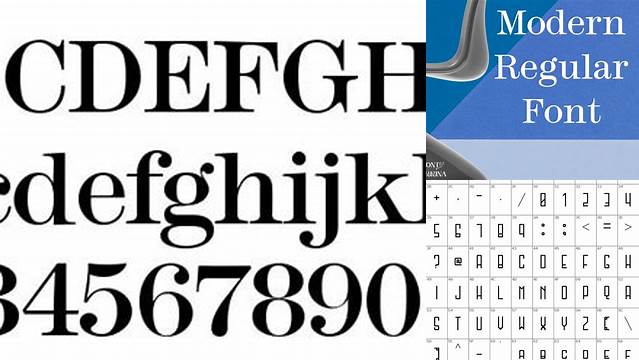
Modern Regular Fonts: Free Downloads For Your Projects
Introduction: Diving into the World of Modern Regular Fonts
Hey guys! Ever wondered what makes a font truly modern and regular? Well, let's dive in! Modern regular fonts are the unsung heroes of design, offering a clean, contemporary look that works wonders across various platforms. Think websites, posters, logos – you name it! Finding the perfect modern regular font that’s also available for free download can feel like searching for a needle in a haystack. But don't worry; we’re here to guide you through the process. We'll explore what defines these fonts, where to find them, and how to use them effectively. Getting the right font can elevate your project from meh to marvelous, and we're here to make that happen. Whether you’re a seasoned designer or just starting out, understanding the nuances of modern regular fonts is essential. So, let's get started and unlock the potential of these fantastic typefaces!
What Defines a Modern Regular Font?
So, what exactly makes a modern regular font tick? It's all about clean lines, geometric shapes, and a balanced appearance. Modern fonts often feature high contrast between thick and thin strokes, giving them a sophisticated, almost elegant feel. Regular refers to the font's weight – it's not bold, not light, but just right. This makes it incredibly versatile for body text, headlines, and everything in between. Imagine a font that's easy on the eyes, readable at any size, and adds a touch of class to your project. That's the essence of a modern regular font. These fonts steer clear of overly decorative elements, focusing instead on simplicity and clarity. This minimalist approach ensures that your message gets across without any distractions. They are often characterized by their vertical stress and sharp serifs (if they have any). This gives them a very distinct and polished appearance. For example, think of fonts like Helvetica or Futura – they embody these qualities perfectly. Embracing a modern regular font means embracing a timeless aesthetic that never goes out of style. It’s about creating designs that are both contemporary and enduring.
How to Choose the Right Modern Regular Font
Choosing the right modern regular font can feel like a daunting task, but don't sweat it! First, think about the purpose of your project. Is it for a website, a poster, or a logo? Each medium has its own requirements. For websites, readability is key, so opt for fonts that are easy on the eyes at smaller sizes. For posters and logos, you can afford to be a bit more adventurous, but make sure the font still reflects your brand's personality. Consider the overall tone you're trying to convey. Do you want something elegant and sophisticated, or something more playful and approachable? The font should align with your message. Also, pay attention to the font's legibility and readability. Legibility refers to how easy it is to distinguish individual letters, while readability refers to how easy it is to read words and sentences. Always test the font in different sizes and contexts to ensure it looks good. And don't be afraid to experiment! Try out different combinations of fonts to see what works best. Ultimately, the right modern regular font is one that enhances your design and helps you communicate your message effectively.
Modern Regular Fonts for Web Design
When it comes to web design, modern regular fonts are your best friends. They provide the clean, readable text that users need to navigate your site easily. A good modern regular font ensures that visitors can focus on the content, rather than struggling to decipher fancy or overly stylized typography. For body text, opt for fonts like Open Sans, Roboto, or Lato – these are widely used and known for their excellent readability on screens. For headings, you can be a bit more creative, but still prioritize clarity. Fonts like Montserrat or Raleway can add a touch of personality without sacrificing legibility. Remember to consider the overall aesthetic of your website when choosing a font. A minimalist website might benefit from a clean, sans-serif font, while a more traditional website could use a serif font with a modern twist. Also, pay attention to the font's weight and size. Too light or too small, and it will be difficult to read; too heavy or too large, and it will overwhelm the design. Aim for a balanced approach that complements your website's content and enhances the user experience. Ultimately, the goal is to create a website that's both visually appealing and easy to use, and the right modern regular font can help you achieve that.
Modern Regular Fonts for Print Design
In the world of print design, modern regular fonts offer a timeless elegance and readability that can elevate any project. Whether you're designing brochures, posters, or business cards, choosing the right font is crucial for making a lasting impression. Modern regular fonts provide a clean and professional look, ensuring that your message is conveyed clearly and effectively. For body text in print, consider fonts like Garamond, Times New Roman, or Century Gothic. These fonts have been used for centuries and are known for their excellent readability in printed materials. For headings and titles, you can experiment with more stylized modern regular fonts, but always prioritize legibility. Consider the size and weight of the font, as well as the paper stock you're using. Thicker paper stocks can handle bolder fonts, while thinner paper stocks might require lighter fonts to avoid ink bleeding. Also, pay attention to the kerning and leading of the font. Kerning refers to the spacing between individual letters, while leading refers to the spacing between lines of text. Adjusting these settings can improve the overall readability and visual appeal of your design. With the right modern regular font, your print designs will stand out for their clarity, professionalism, and timeless style.
Modern Regular Fonts for Logo Design
Logo design is all about creating a visual identity that captures the essence of a brand, and modern regular fonts play a vital role in achieving this. A well-chosen font can convey the brand's personality, values, and overall aesthetic. When selecting a modern regular font for a logo, consider the brand's target audience and the message you want to communicate. A clean, sans-serif font might be perfect for a tech company, while a more elegant serif font could be suitable for a luxury brand. The key is to find a font that is both visually appealing and highly readable. Logos need to be legible at various sizes, from business cards to billboards, so clarity is essential. Some popular modern regular fonts for logo design include Montserrat, Raleway, and Bebas Neue. These fonts offer a clean and contemporary look that works well in a variety of contexts. Also, consider the font's weight and style. A bold font can convey strength and confidence, while a lighter font can suggest elegance and sophistication. Experiment with different fonts and styles to find the perfect match for your brand. And remember, simplicity is often key. A well-designed logo should be memorable and easy to recognize, and a modern regular font can help you achieve that.